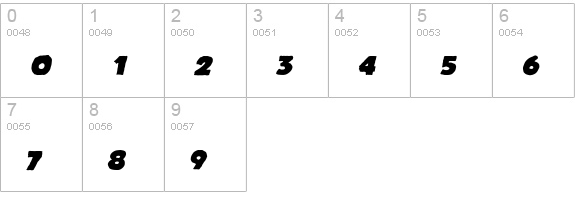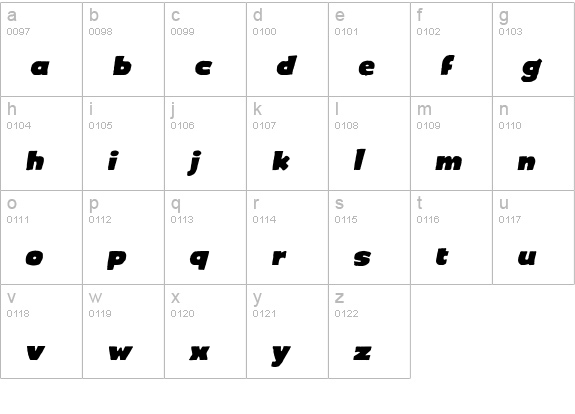
Crimewave BB Italic Font Details
Crimewave BB Italic is a distinctive, italic variant in the Crimewave typeface family \xE2\x80\x94 well suited to design and typography projects.
Crimewave BB Italic font is a striking and bold typeface that exudes a sense of mystery and intrigue. With its slanted and edgy letterforms, this font is perfect for creating eye-catching designs that command attention. The italicized style adds a touch of sophistication and modernity to any project. What makes Crimewave BB Italic font even more appealing is that it is available for free download at FontsMarket.com. This means you can easily incorporate this unique font into your designs without any cost, making it a valuable addition to your font collection. Whether you are working on a poster, logo, or website design, Crimewave BB Italic font will help you make a bold statement and stand out from the crowd. Download it for free today and unleash your creativity with this captivating typeface.